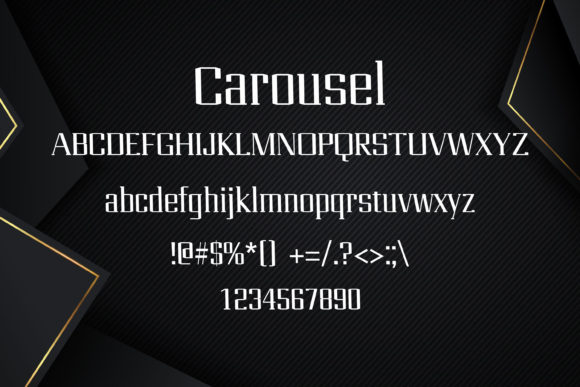
Introducing Carousel Font: A Geometric Marvel for Futuristic Designs
Are you tired of using the same old fonts for your designs? Look no further! Carousel Font is here to revolutionize your typography with its bold, strong, and geometrically shaped letters. This stunning display font is perfect for designers and crafters who want to add a touch of futurism to their work.
What is Carousel Font?
Carousel Font is a carefully crafted display font that boasts a unique geometric style. Its bold and strong lettering makes it perfect for headlines, titles, and any other design element that requires a statement piece. The font’s futuristic look and feel will instantly elevate your designs, making them stand out from the crowd.
Key Features of Carousel Font
- Geometric Shape: Carousel Font features geometric shapes that give it a modern and futuristic look.
- Bold and Strong: The font’s bold and strong lettering makes it perfect for display purposes.
- Highly Versatile: Carousel Font can be used for a wide range of design projects, from posters and flyers to logos and branding.
- Easily Readable: Despite its bold style, Carousel Font is surprisingly easy to read, making it perfect for titles and headings.
How to Use Carousel Font in Your Designs
Adding Carousel Font to your designs is a breeze. Here are a few ways you can incorporate it into your work:
- Posters and Flyers: Use Carousel Font as a headline or title font to grab attention and make a statement.
- Logos and Branding: Create a bold and memorable logo with Carousel Font that will set your brand apart.
- Web Design: Use Carousel Font as a display font for your website’s title or headings to add a touch of futurism.
- Social Media Graphics: Add Carousel Font to your social media graphics to make them stand out and grab attention.
Tips for Pairing Carousel Font with Other Fonts
Pairing Carousel Font with other fonts can create a stunning visual effect. Here are a few tips to keep in mind:
- Contrasting Fonts: Pair Carousel Font with a contrasting font, such as a script or serif font, to create visual interest.
- Neutral Fonts: Use a neutral font, such as Arial or Helvetica, as a body font to let Carousel Font take center stage.
- Experiment with Font Sizes: Play around with different font sizes to create a visually appealing hierarchy.
Why Designers and Crafters Love Carousel Font
Designers and crafters love Carousel Font for its unique and futuristic style. Here are a few reasons why:
- Instantly Elevates Designs: Carousel Font instantly adds a touch of futurism to any design.
- Highly Versatile: The font can be used for a wide range of design projects.
- Easy to Read: Despite its bold style, Carousel Font is surprisingly easy to read.
In conclusion, Carousel Font is a geometric marvel that can add a touch of futurism to any design. Its bold and strong lettering, highly versatile style, and ease of readability make it a must-have font for designers and crafters. Whether you’re working on a poster, logo, or website, Carousel Font is sure to make your designs stand out from the crowd.